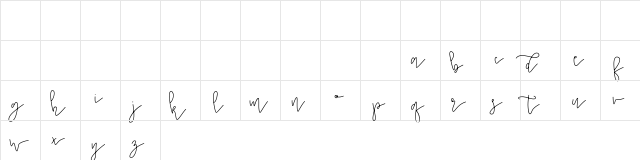
Bridal Shower Monoline Script Regular
Design Context for Bridal Shower Monoline Script Typeface
Bridal Shower Monoline Script brings a calligraphic fluidity to the page — its connecting strokes and expressive curves give it an unmistakably human quality.
Font Pairing: Combine Bridal Shower Monoline Script with a simple geometric sans for maximum contrast — the tension between flowing curves and clean structure is a classic typographic pairing.
Pro Tip: Use Bridal Shower Monoline Script for short runs of text — names, titles, or taglines. Extended body copy in script faces tires the eye quickly.